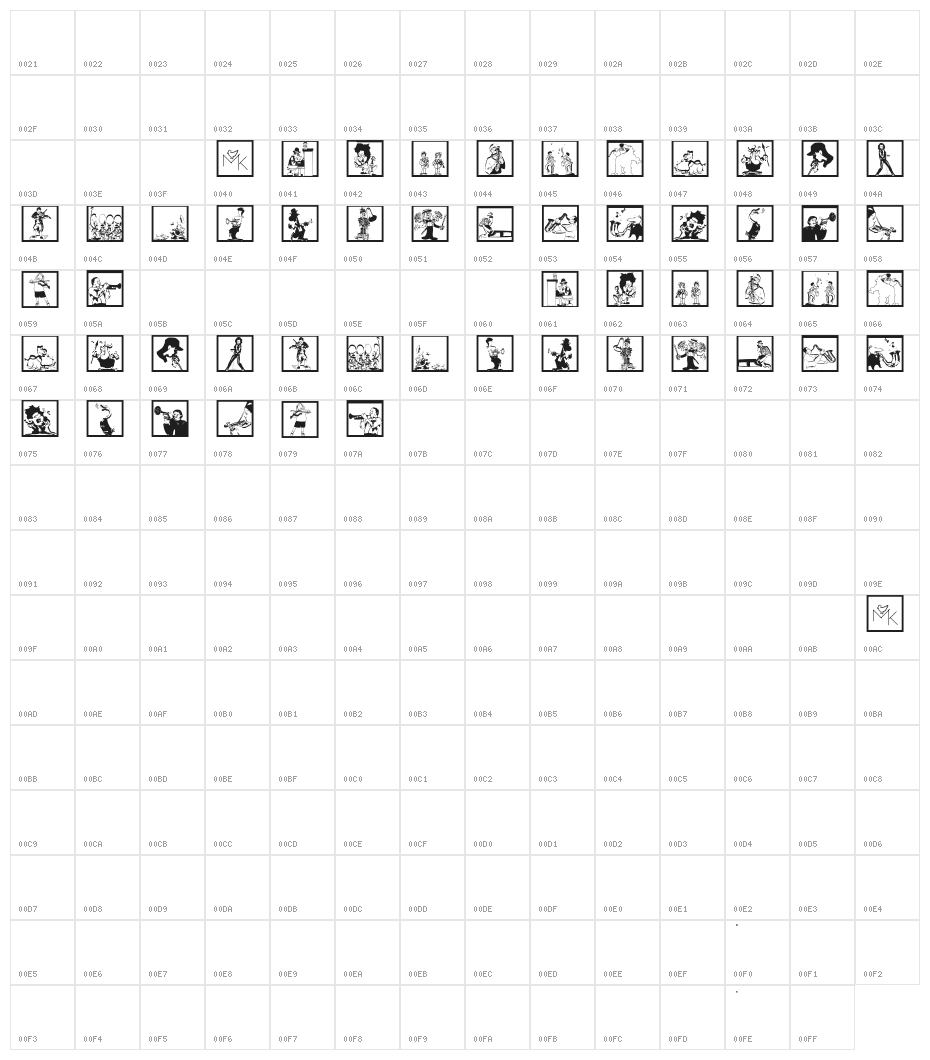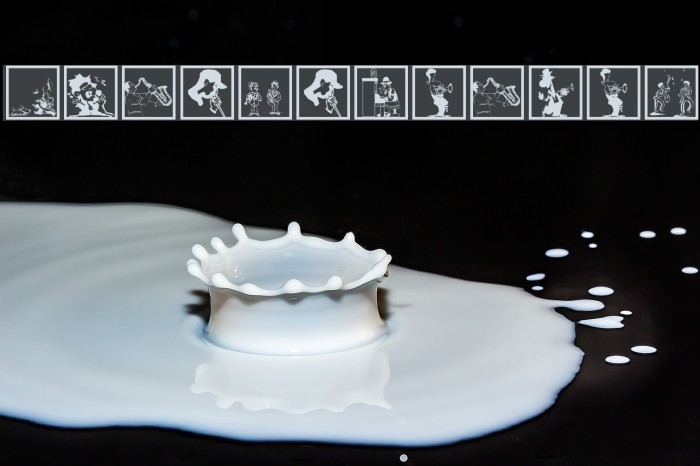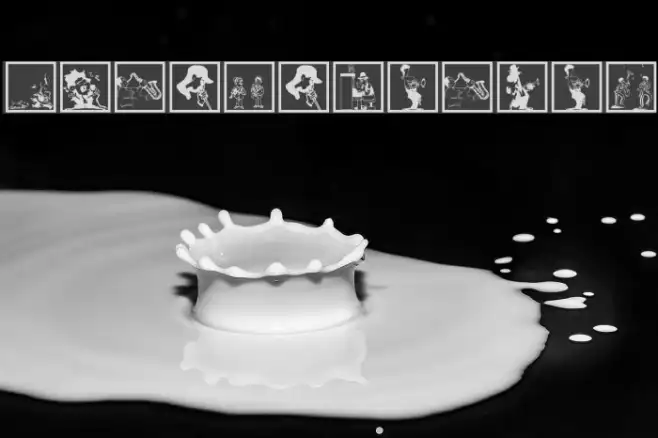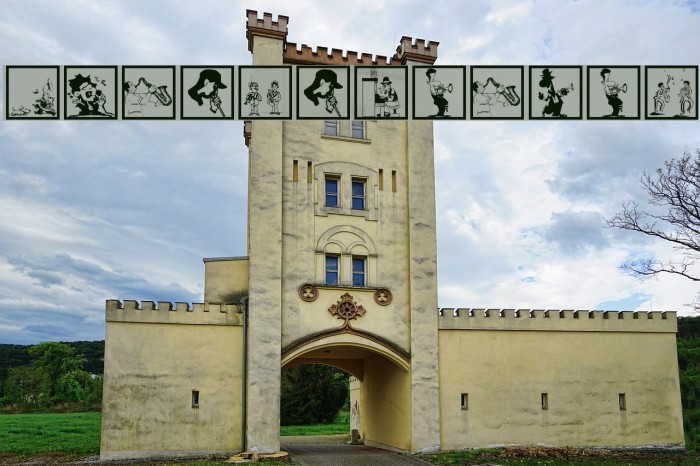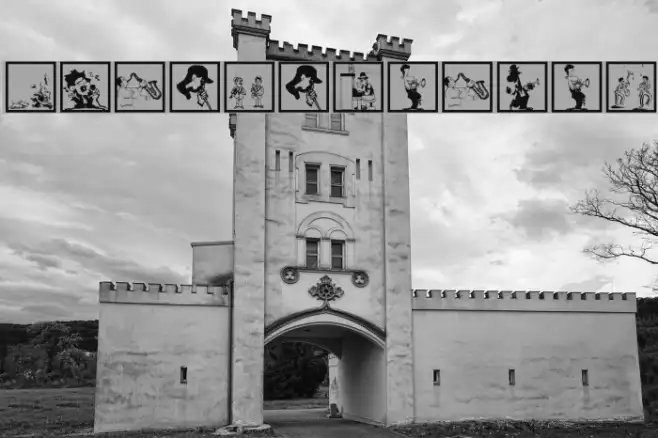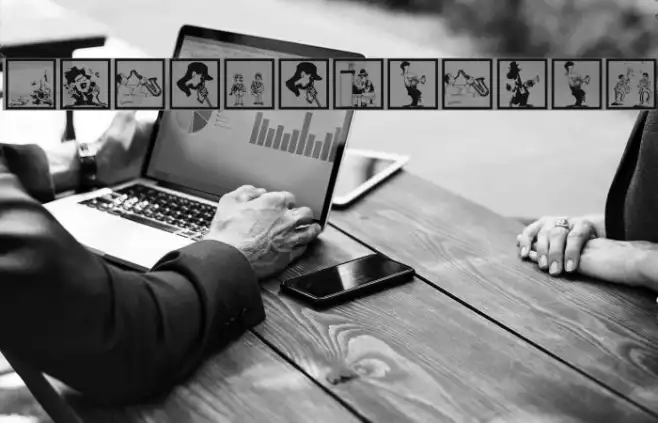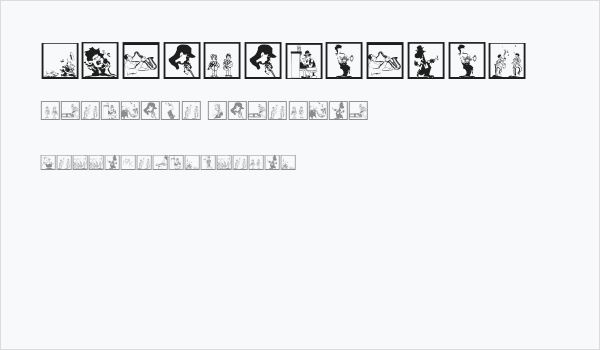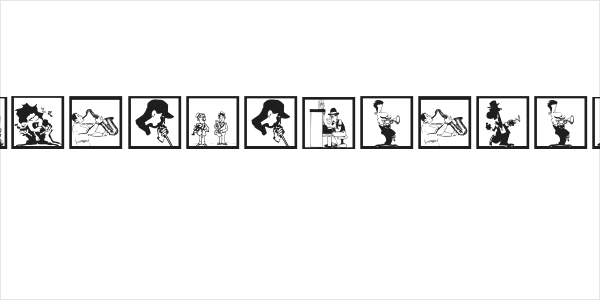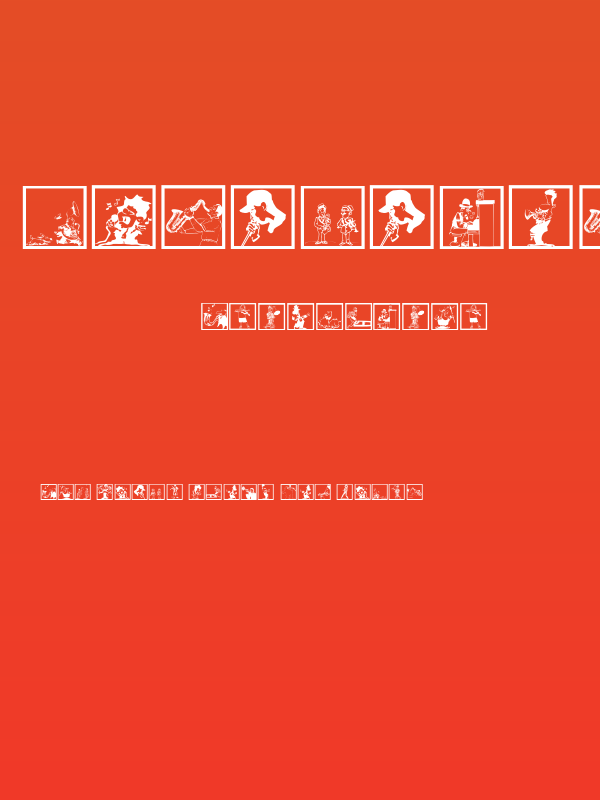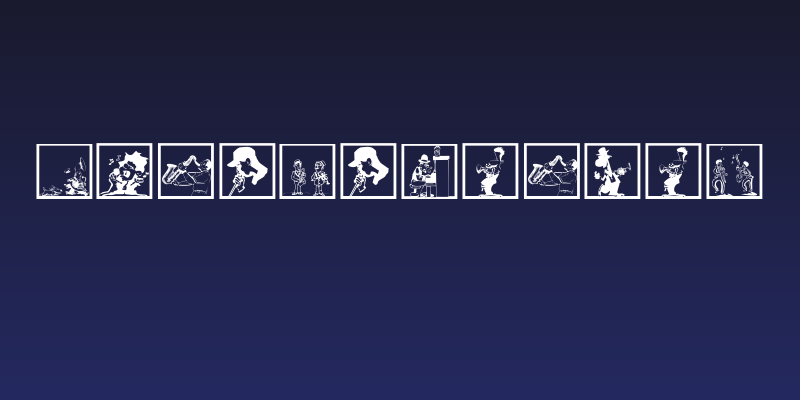
A decorative display font featuring cartoon-style illustrations of musicians and musical scenes within square frames for each character. The glyphs are highly detailed, playful, and visually engaging, with each character representing a unique musical act or performer.
| Overall Style | Decorative, Playful, Cartoonish |
| Use Case | Headlines, Posters, Themed Graphics, Educational Materials |
| Proposed Projects | ChildrenΓ’β¬β’s books, music event posters, educational materials, themed party invitations, playful branding. |